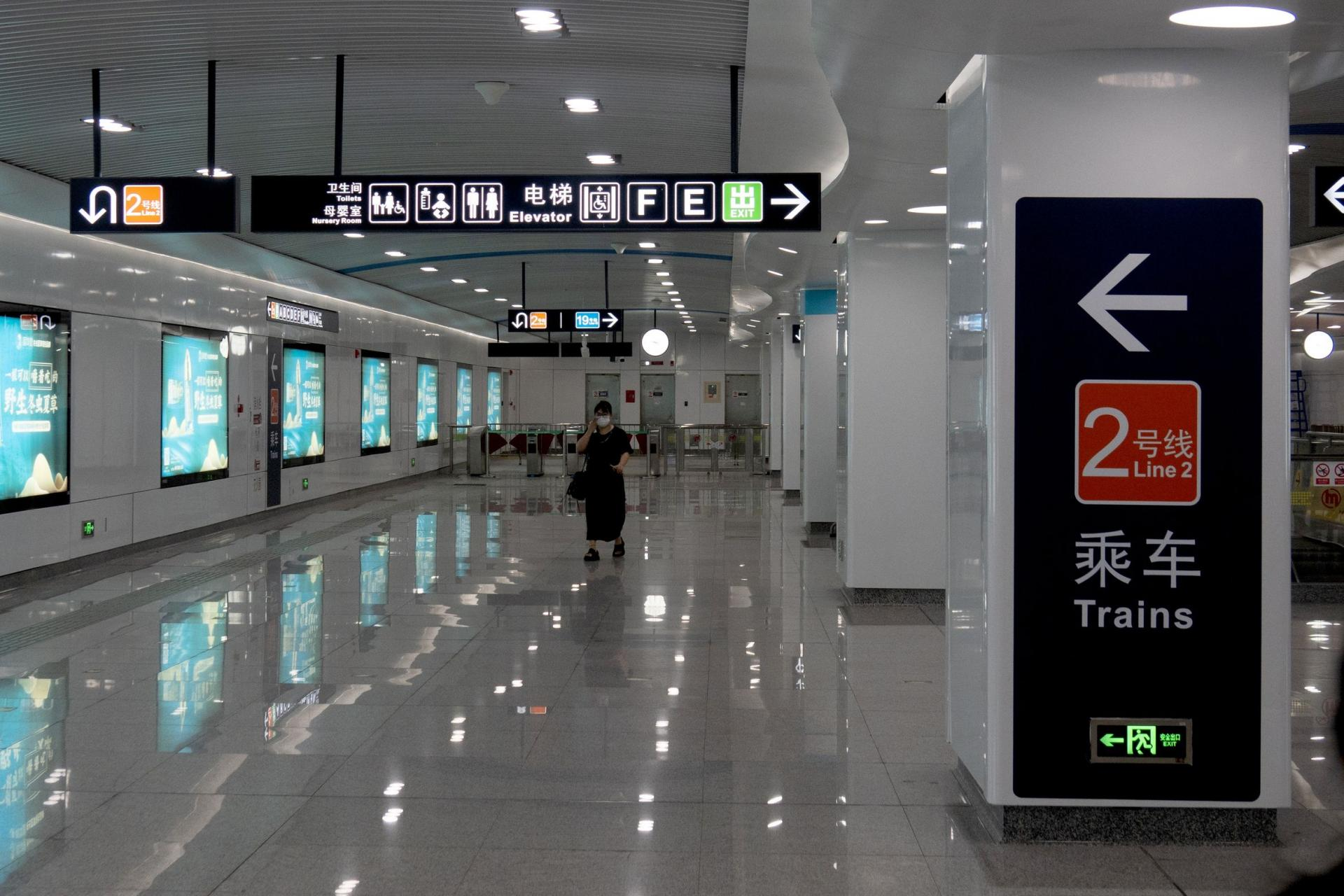
A Type Designer’s Overseas Travelogue
Beginning
As international travel routes reopen one by one in the post-pandemic era, more people seem to be heading abroad. When you think of overseas travel, what comes to mind first? Delicious food, famous landmarks, unusual buildings, and unfamiliar experiences. My cousin, who is a chef, can instantly list a country’s representative dishes at the mere mention of its name. In contrast, as a type designer, I have a peculiar occupational habit: the first thing I think about is the language and script used in that country. I believe language carries the soul of a nation, and that within scripts—and the typography that embodies them—you can sense a country’s history and culture.
This summer, I was fortunate to spend a month on a workation abroad. Through the eyes of a type designer, I would like to share with you the streets and letters of Singapore, China, and Taiwan that I encountered during that time.
Airports
The first place we arrive when traveling abroad is the airport. Let us begin by looking at airport signage. Airports are typographically fascinating spaces. Vast in scale and filled with people of different ages and nationalities moving in countless directions, they must rely on large, clear, and unambiguous instructions to prevent confusion. Highly legible type, well-considered layouts, and intuitive pictograms that transcend language—observing how letters perform their roles throughout an airport makes the long walk from the plane to immigration far less tedious.
Although there are slight variations, airport signage generally operates as a set composed of:
(1) the official language of the country,
(2) English as the international lingua franca,
(3) intuitive pictograms, and
(4) arrows.
Keeping this framework in mind, let us examine how different countries apply it.
1. Korea – Incheon International Airport
This is Incheon International Airport in Korea. The Hangul used here is a dedicated Incheon International Airport typeface. The rounded ieung, symmetrical siot, and densely filled letterforms subtly recall the appearance of early Hangul as seen in Hunminjeongeum. What impression do you get?
In addition to Korean and English, Chinese and Japanese are often included on signage to accommodate the many visitors from those countries. Airports sometimes incorporate the languages of their most frequent users in this way.
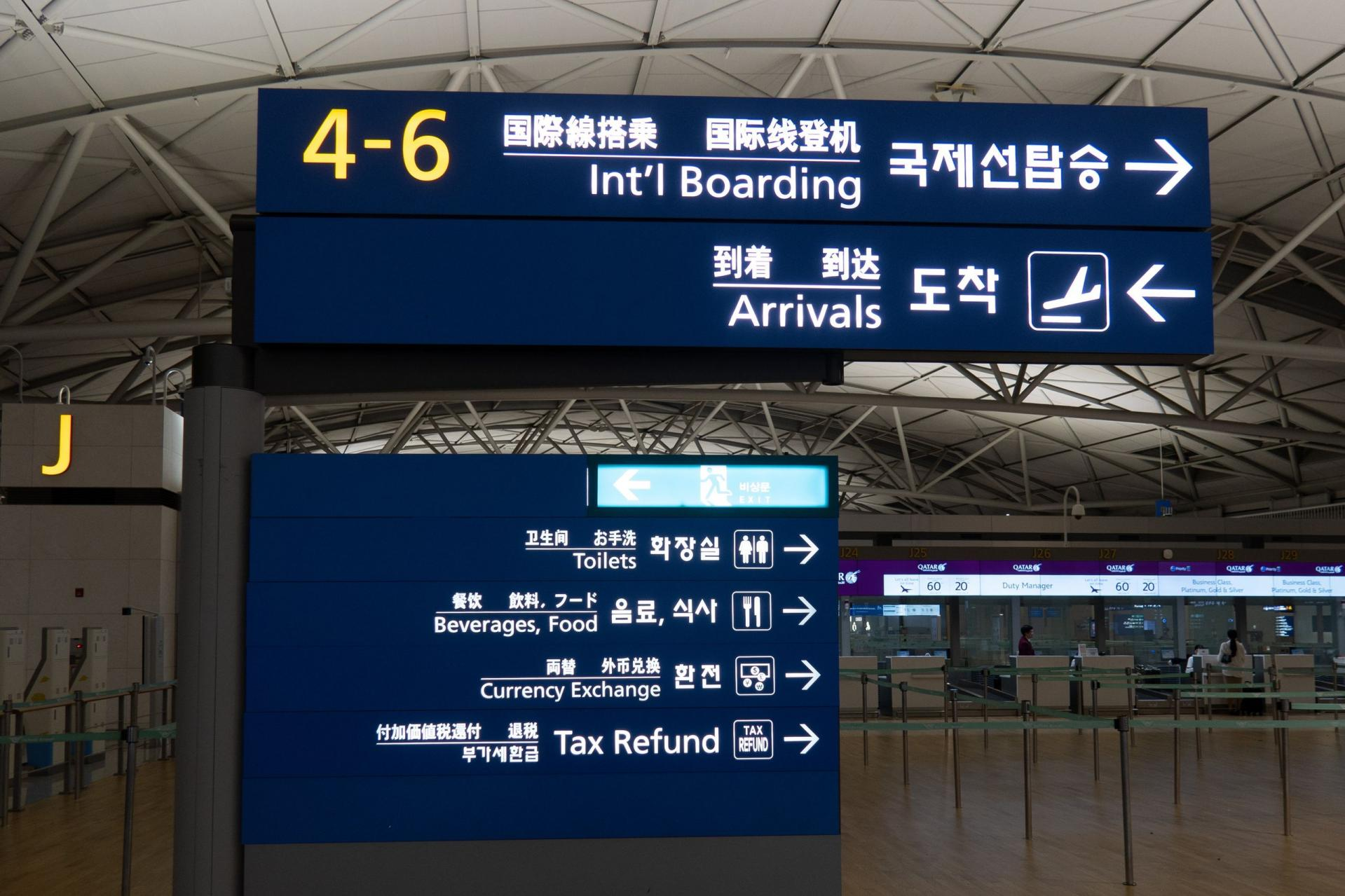
2. Malaysia – Kuala Lumpur International Airport
Next is Kuala Lumpur International Airport in Malaysia. I passed through Malaysia briefly while transiting to Singapore, and several interesting details stood out. On the signage, Malay—the official language—is set prominently, while English appears smaller. Transfer routes are marked in green and arrivals in yellow, helping travelers distinguish paths easily. Facilities used by both groups, such as restrooms and public phones, are marked in white.
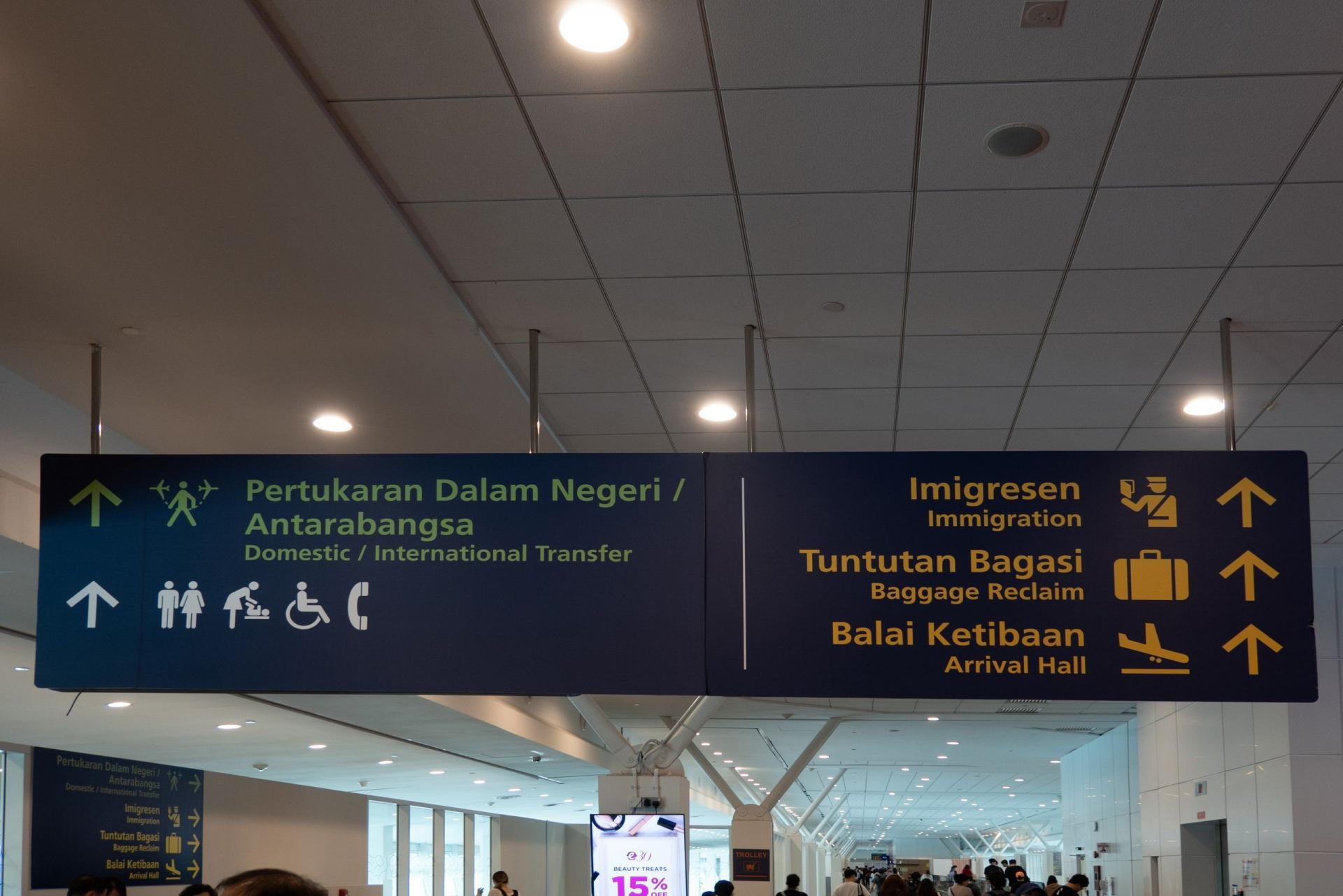
Because Muslims make up about 70% of Malaysia’s population, airports include prayer rooms as public facilities. These are called surau. As you walk through Kuala Lumpur Airport, you will often encounter them. Typically located near restrooms, they are marked in a different color from restroom pictograms. Even at a glance, they clearly feel like surau.
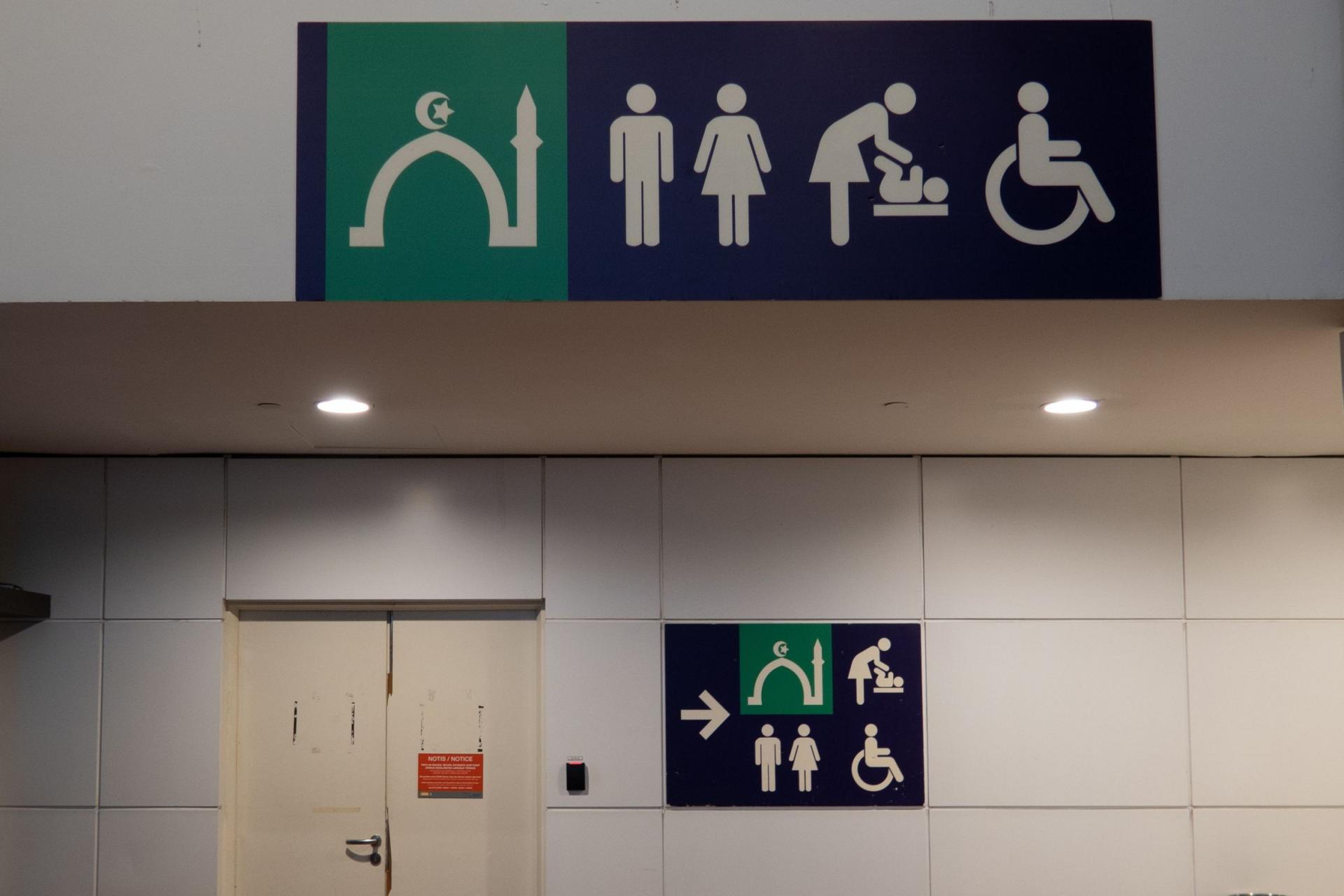
Prayer rooms found throughout Kuala Lumpur Airport.
3. Singapore – Changi International Airport
Finally—my first destination—Singapore. What kinds of letters await us at Changi International Airport?
Singapore is a multicultural country where many ethnicities, cultures, and religions coexist. Its official languages are English, Malay, Mandarin Chinese, and Tamil. In the signage, English—the primary official language—appears most prominently, while Chinese, Malay, Tamil, and sometimes Japanese are arranged vertically to the side. The compact coexistence of multiple scripts feels like a visual embodiment of Singapore’s multiculturalism.
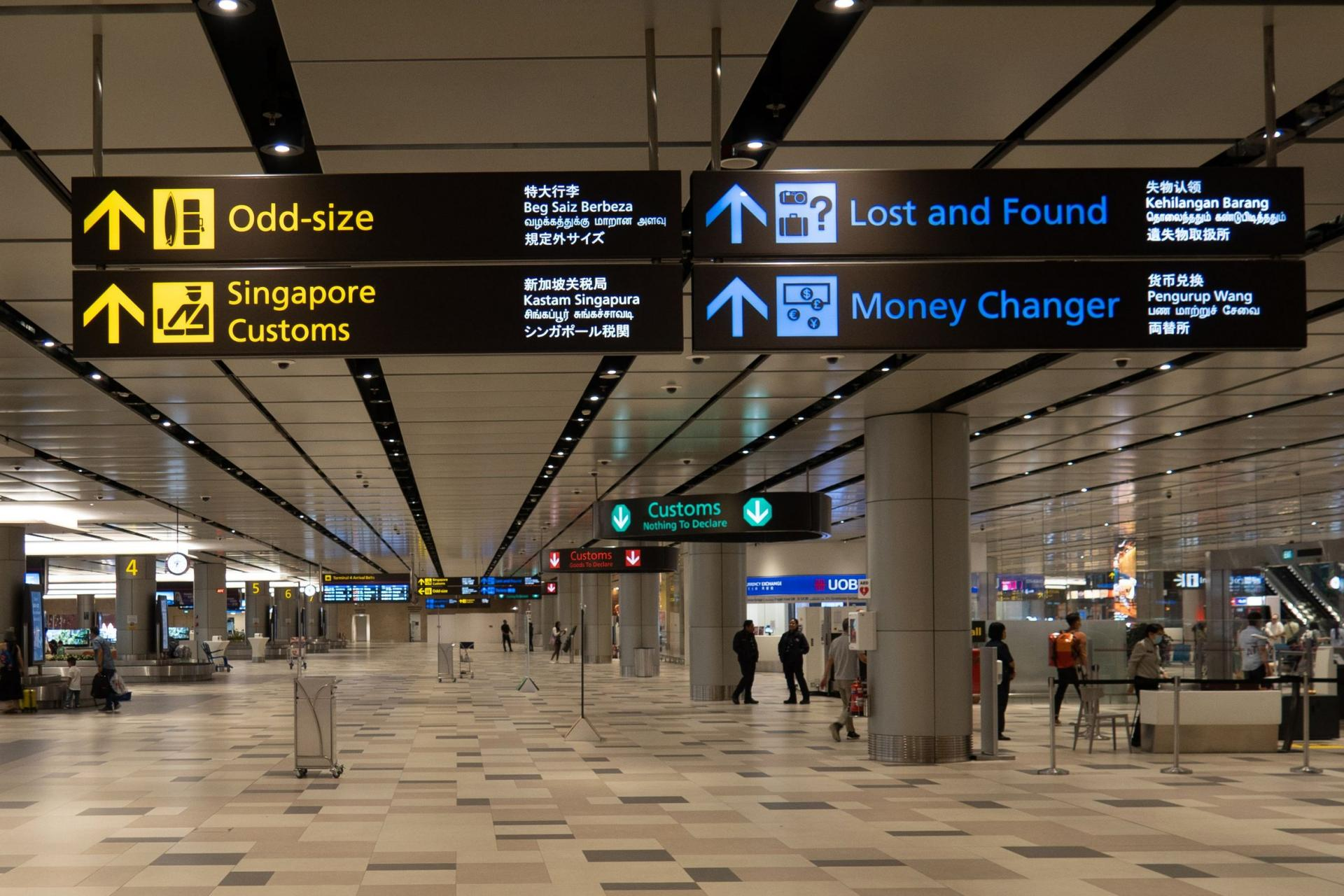
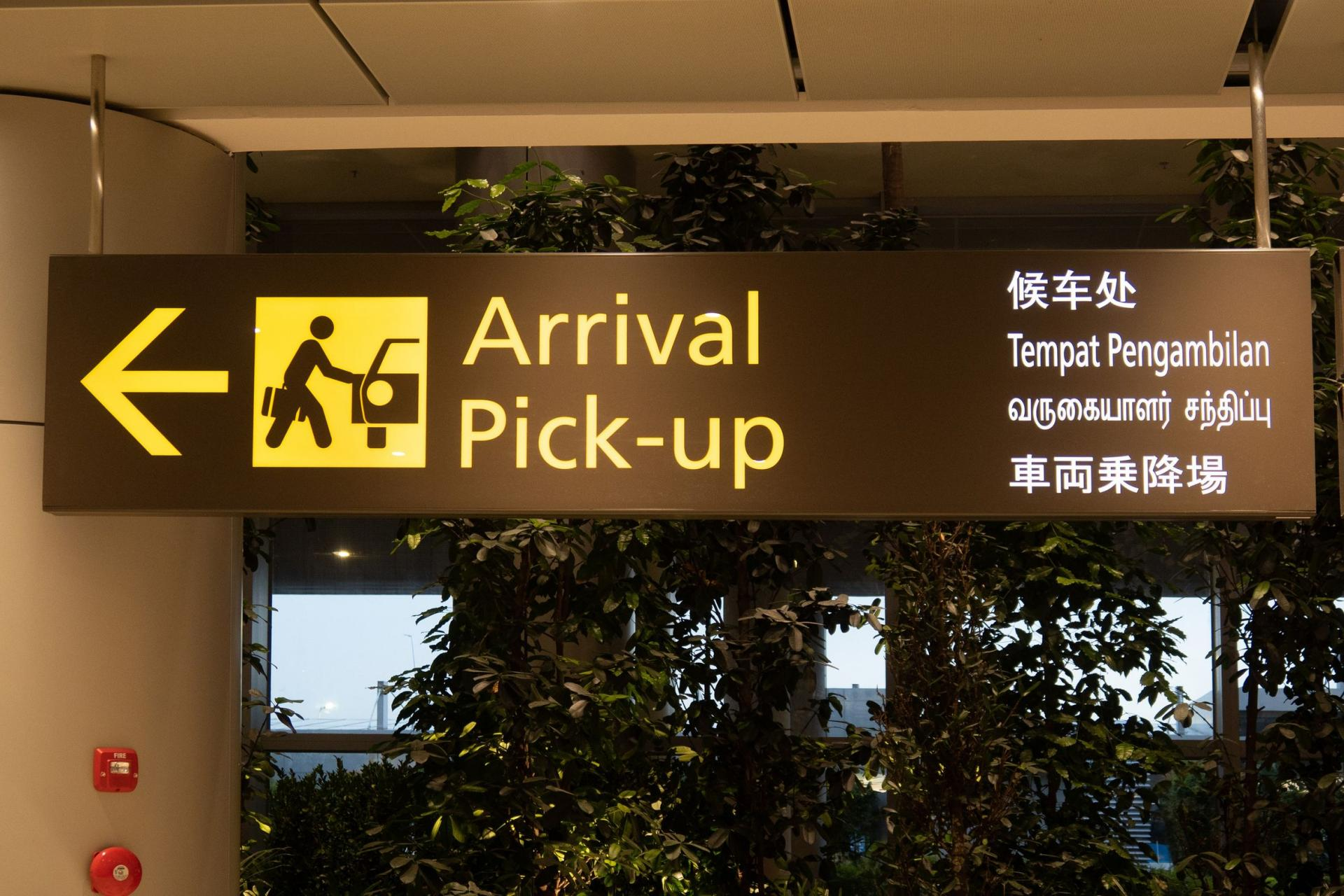
4. China – Shanghai Pudong International Airport
Next, let us move on to Shanghai Pudong International Airport in China. Mainland China uses Simplified Chinese characters (簡體字), which are forms created by simplifying traditional character structures. These differ from the Traditional Chinese characters (繁體字) used in Taiwan, Hong Kong, and Macau.
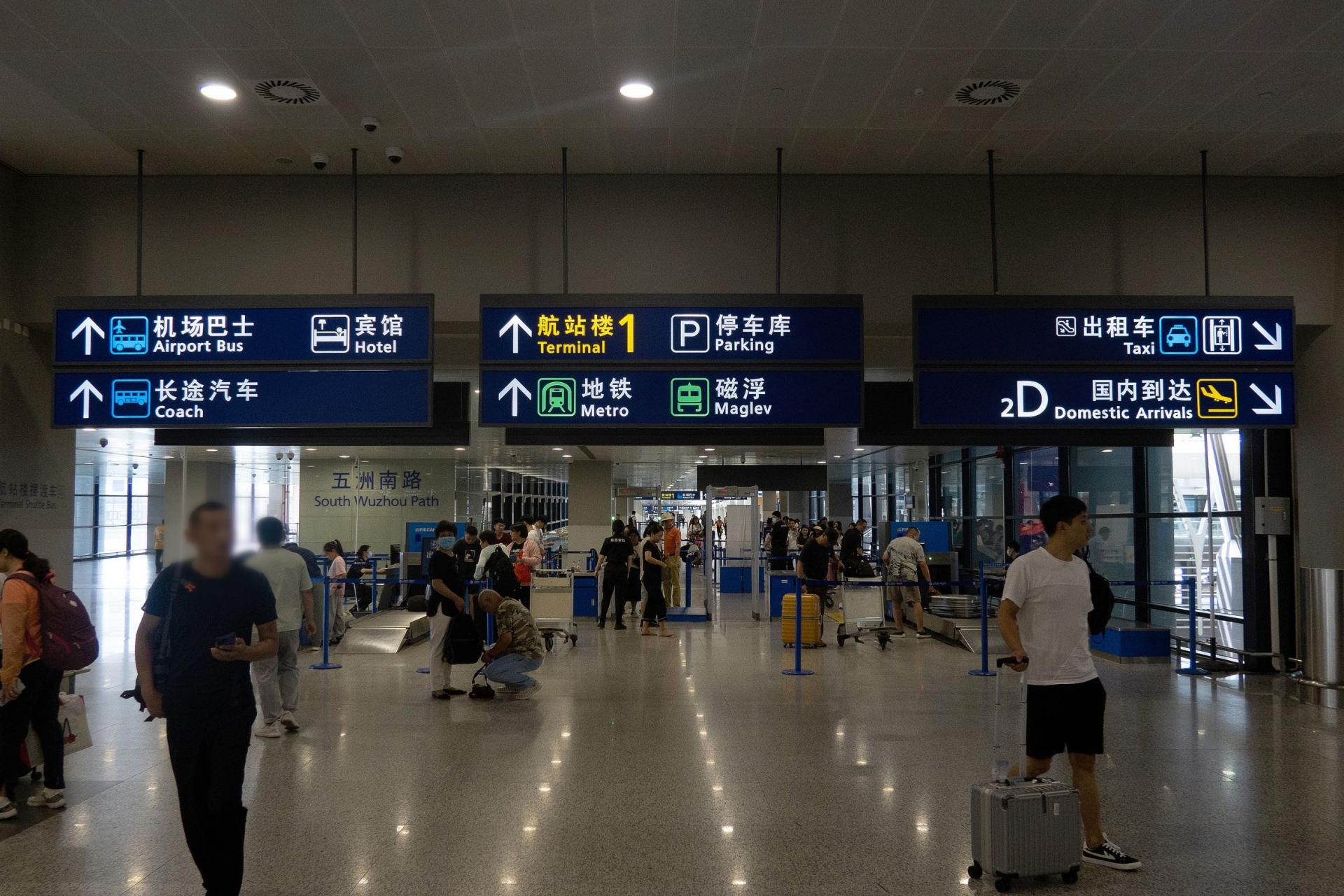
Here we see signage combining Chinese and English. Both the Simplified Chinese and English are set in sans-serif styles, with clean stroke endings and no terminals—what we commonly refer to as Gothic styles.
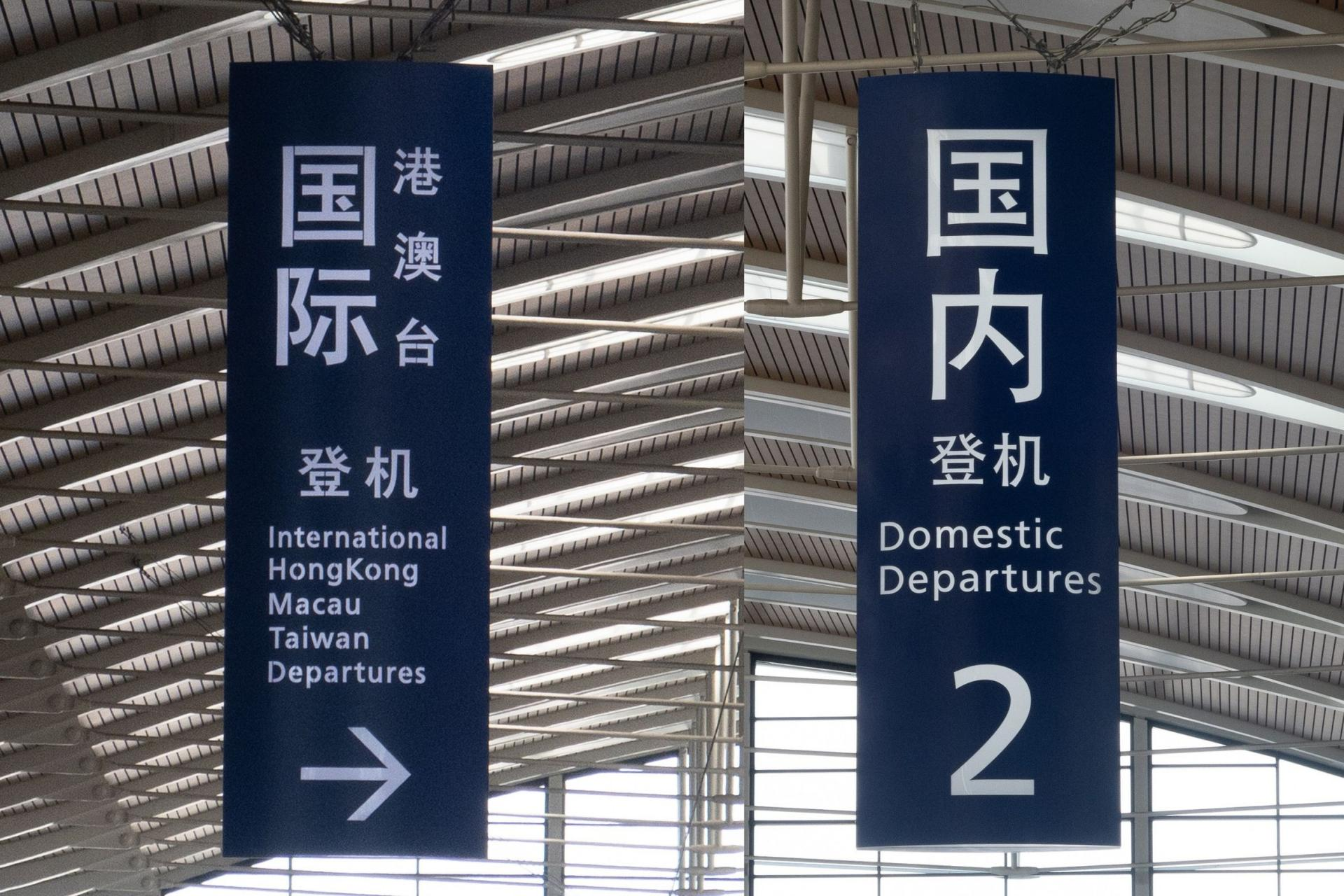
5. Taiwan – Taoyuan International Airport
Now let us visit Taoyuan International Airport in Taiwan, where Traditional Chinese characters are used. Public signage typically employs sans-serif type across all languages, but in Taiwan’s airport, English is set in sans-serif while Chinese uses a Ming-style serif typeface. The reason is intriguing. If anyone knows why, I would welcome your insight.
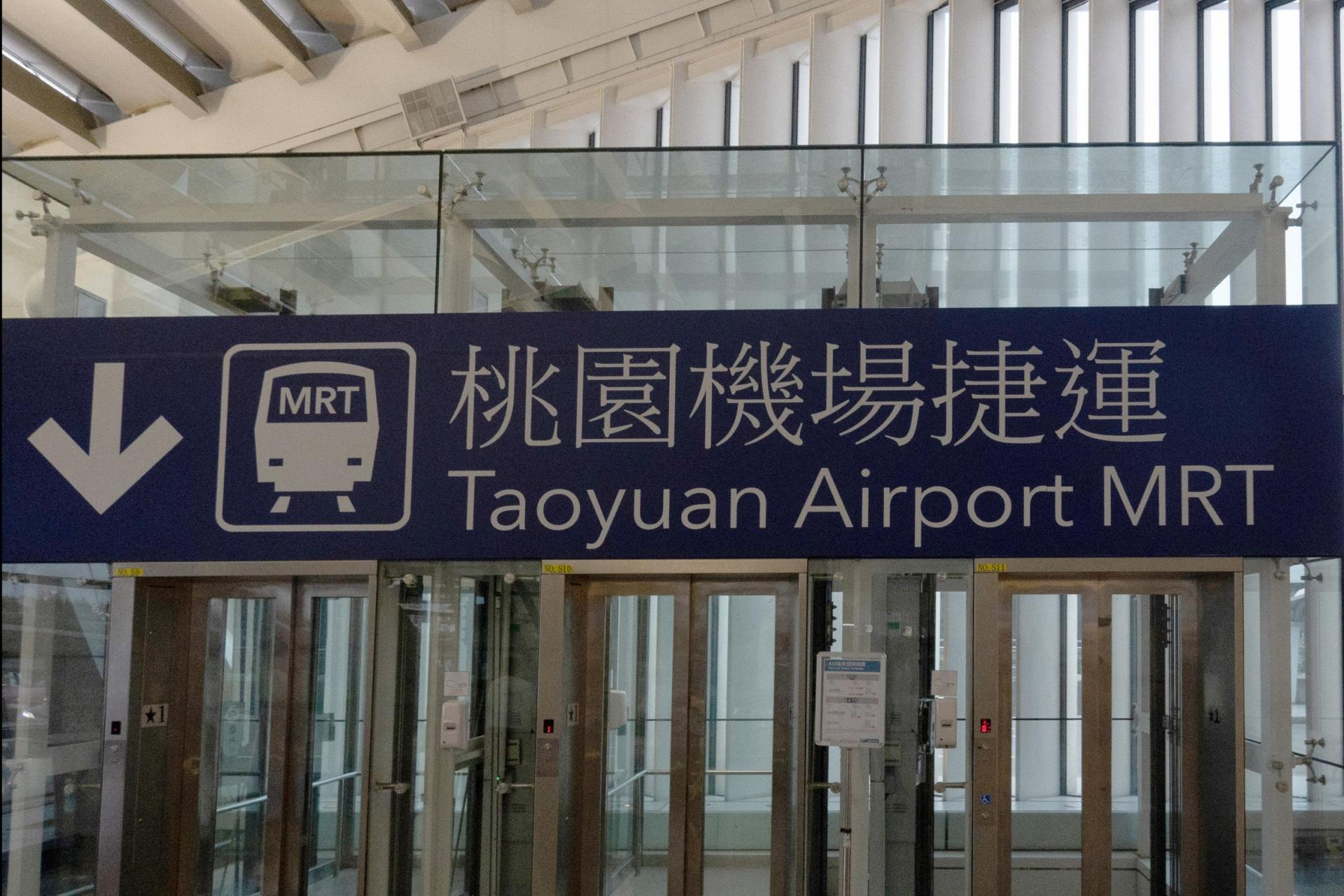
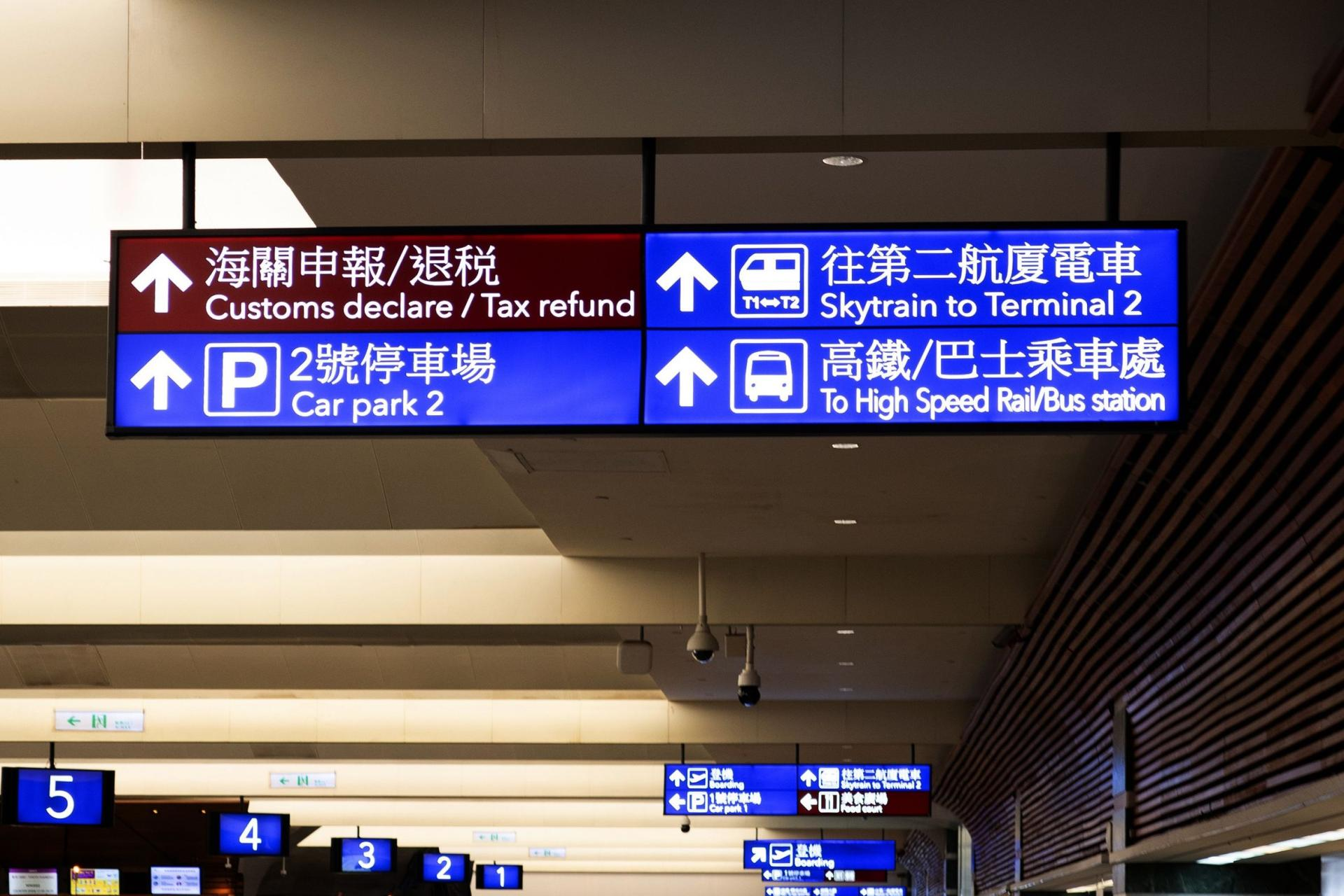
Public Transportation Signage
Leaving the airport, let us turn to public transportation. Signage for buses and subways—used by people of all ages—must be concise and unambiguous. At the same time, these spaces are filled with various forms of advertising.
(It says “Korean person,” not “Korean language.”)
Closing
Traveling abroad often leaves us feeling lost and frustrated when surrounded by languages we cannot read or understand. Instead of staring anxiously at Google Maps, lift your head and take a moment to observe the streets. Even without reading or understanding words, simply observing the shapes of letters can open up new worlds. Sometimes, unfamiliar scripts encountered on ordinary streets reveal more about a country than famous tourist attractions. Getting lost is fine—when you look back, it may become one of your fondest travel memories.